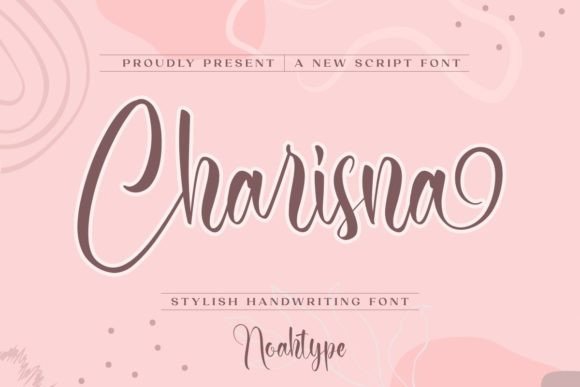
Introducing Charisna Font: Elevate Your Designs with Elegance and Sophistication
In the world of typography, a font can make or break a design. For designers and crafters looking to add a touch of elegance and sophistication to their projects, Charisna Font is an excellent choice. This stylish handwriting font is designed to make any design dazzle, with its sheer lines flowing beautifully to create a lasting impression.
One of the standout features of Charisna Font is its versatility. Its unique style makes it suitable for a wide range of industries, including:
- Accessories
- Apparel
- Author
- Coffee Shop
- Craft
- Homeware
- Perfume
- Salon and Spa
- Wedding Organizers
Whether you’re designing a logo, brochure, or social media post, Charisna Font is the perfect choice. Its elegant and sophisticated style ensures that your design stands out from the crowd, making it ideal for businesses and individuals looking to make a statement.
Why Choose Charisna Font?
So, why should you choose Charisna Font for your design projects? Here are just a few reasons:
- Elegant and Sophisticated Style: Charisna Font has a unique and stylish handwriting style that adds a touch of elegance and sophistication to any design.
- Versatility: Its versatility makes it suitable for a wide range of industries and design projects.
- High-Quality Design: Charisna Font is designed to high standards, ensuring that your designs look professional and polished.
Tips for Using Charisna Font
To get the most out of Charisna Font, here are a few tips:
- Use it as a Headline Font: Charisna Font is perfect for headlines and titles, where its elegant and sophisticated style can really shine.
- Pair it with Other Fonts: Charisna Font pairs well with other fonts, making it easy to create a unique and visually appealing design.
In conclusion, Charisna Font is a stylish and versatile handwriting font that’s perfect for designers and crafters looking to add a touch of elegance and sophistication to their projects. With its PUA encoding and high-quality design, it’s easy to use and customize. Whether you’re designing a logo, brochure, or social media post, Charisna Font is an excellent choice. So why not give it a try and see how it can elevate your designs?